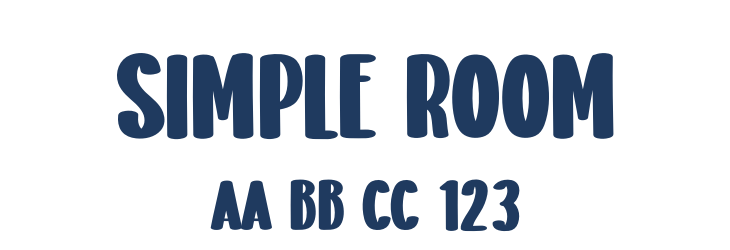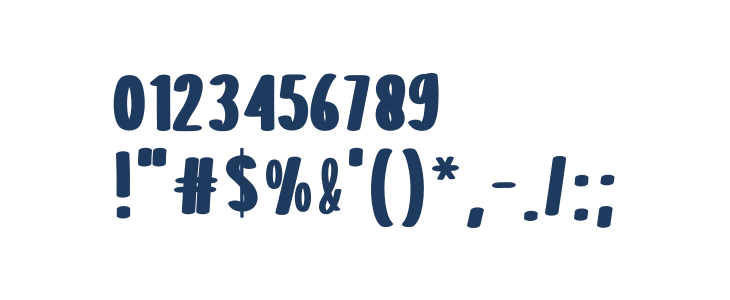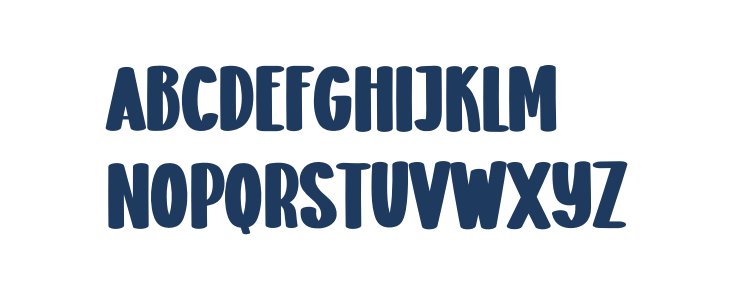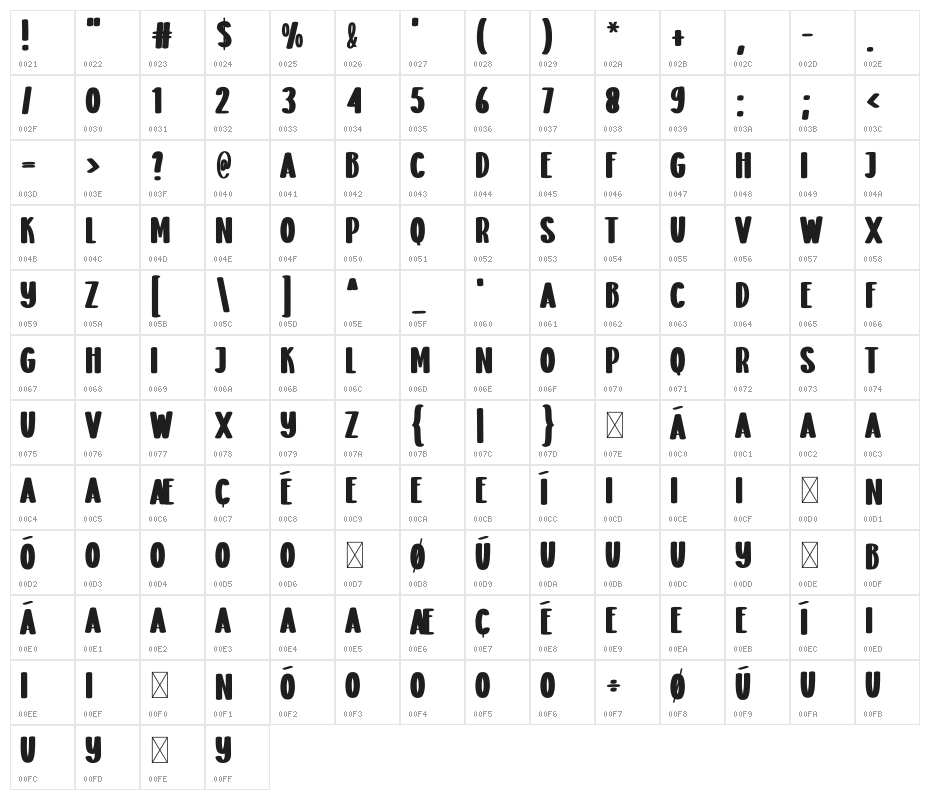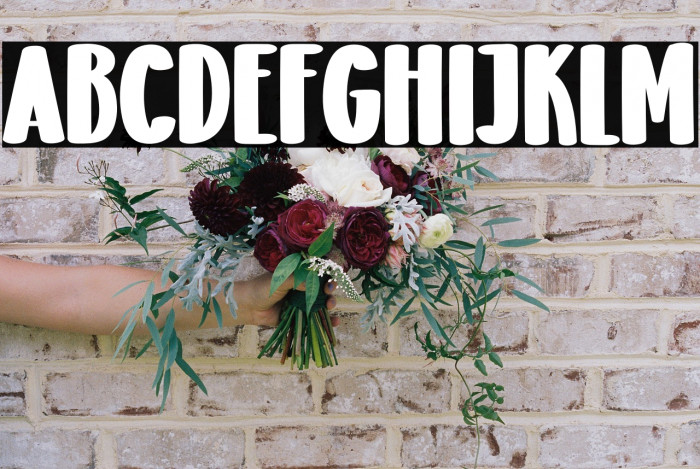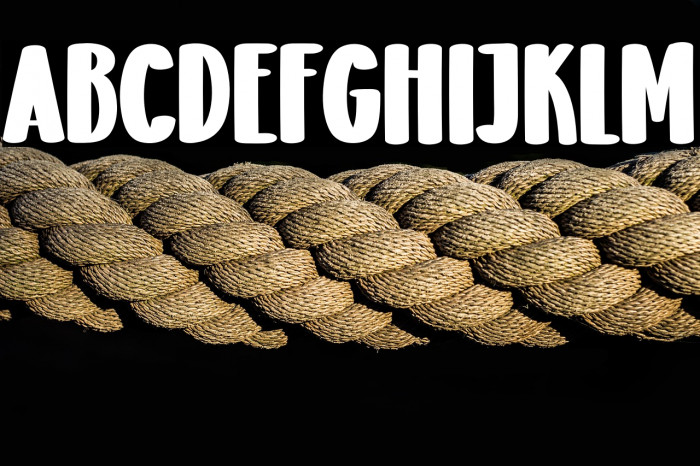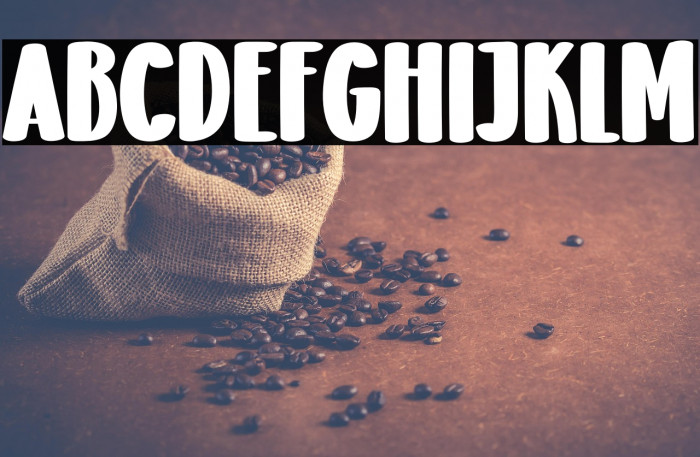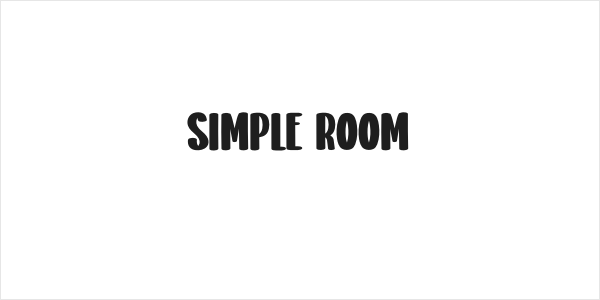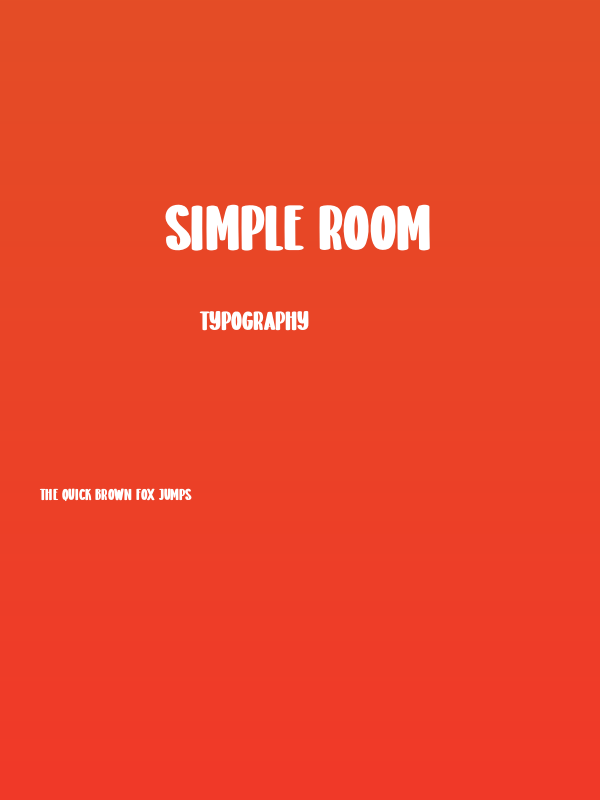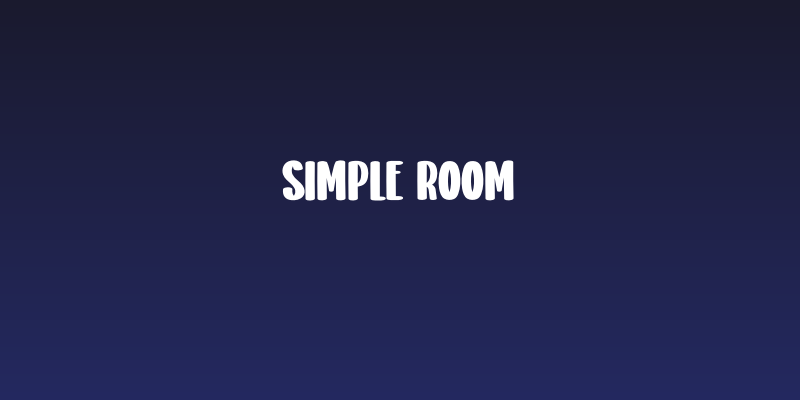
Simple Room Font
Simple Room Description
A bold, playful sans-serif font with rounded edges and slightly irregular shapes, giving it a hand-crafted, casual feel. The characters are thick and uniform in weight, with a slightly condensed width and moderate spacing.
| Width | Condensed |
| Overall Style | Playful, Casual |
| Use Case | Headlines, Logos, Posters, Branding |
| Proposed Projects | Children's books, posters, logos, branding for playful or informal products, packaging, and social media graphics. |